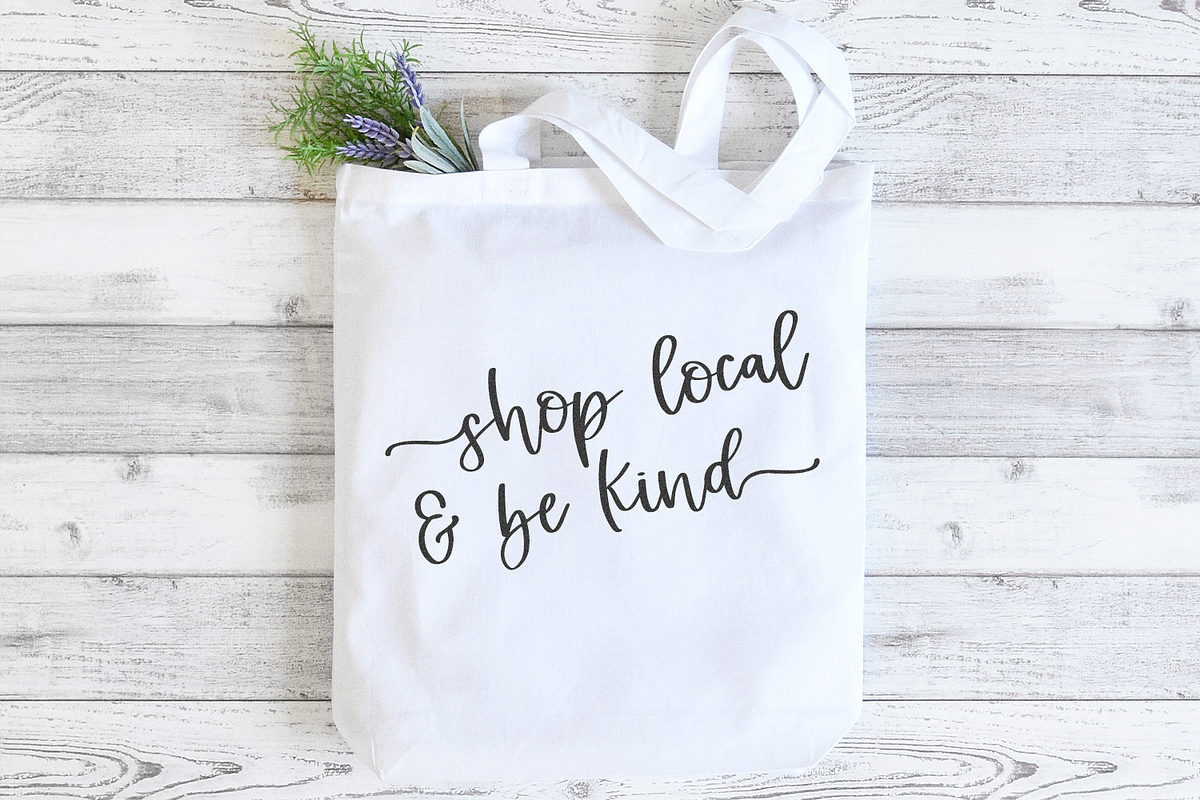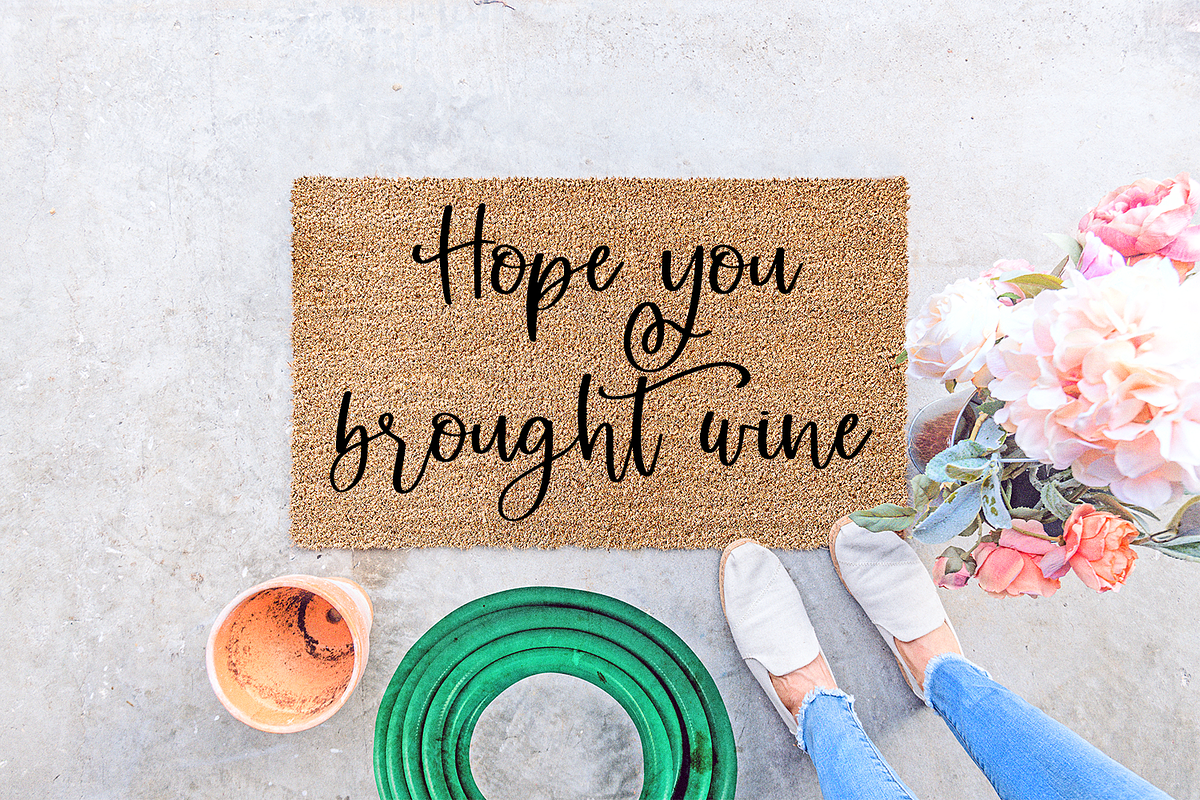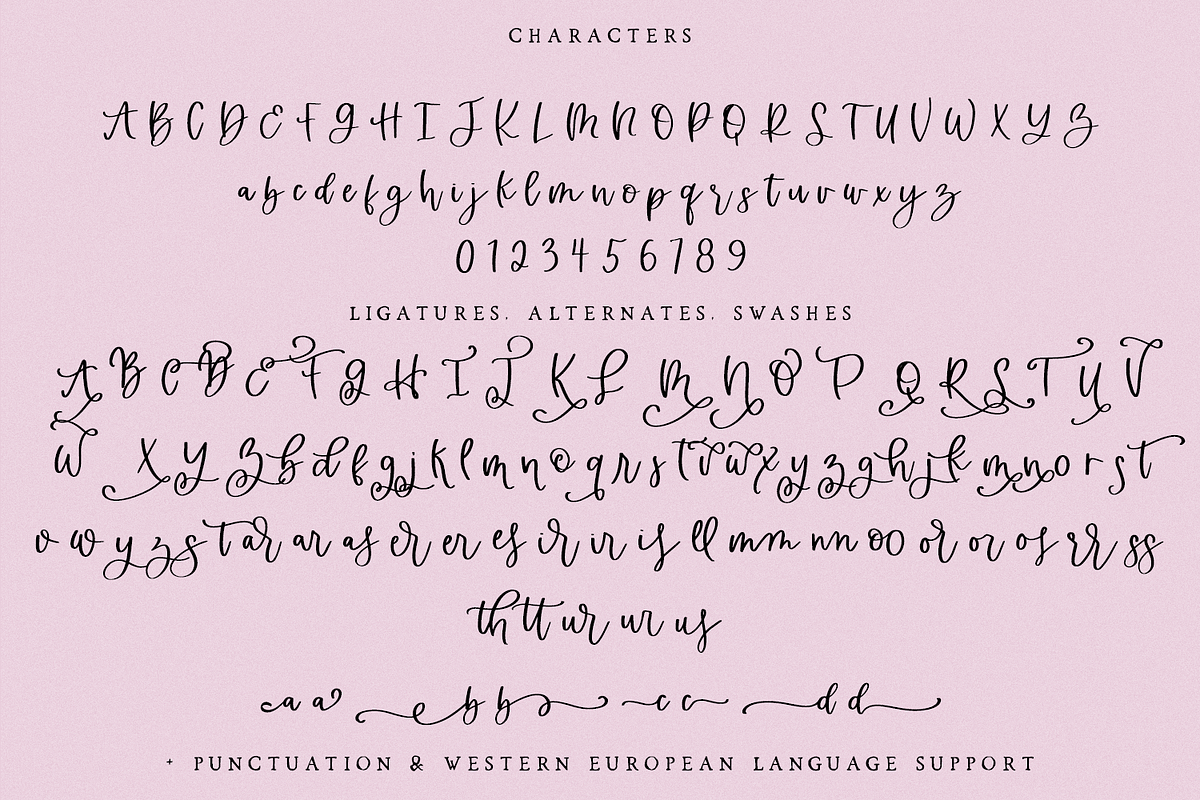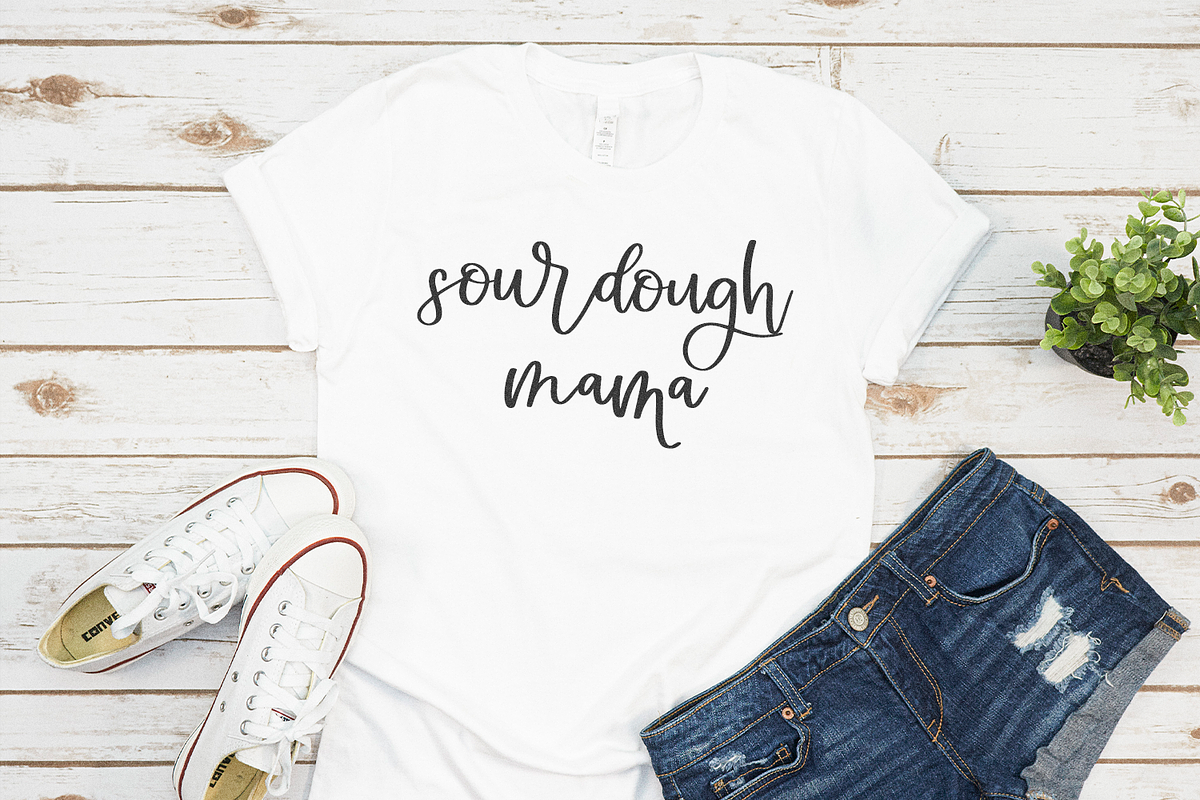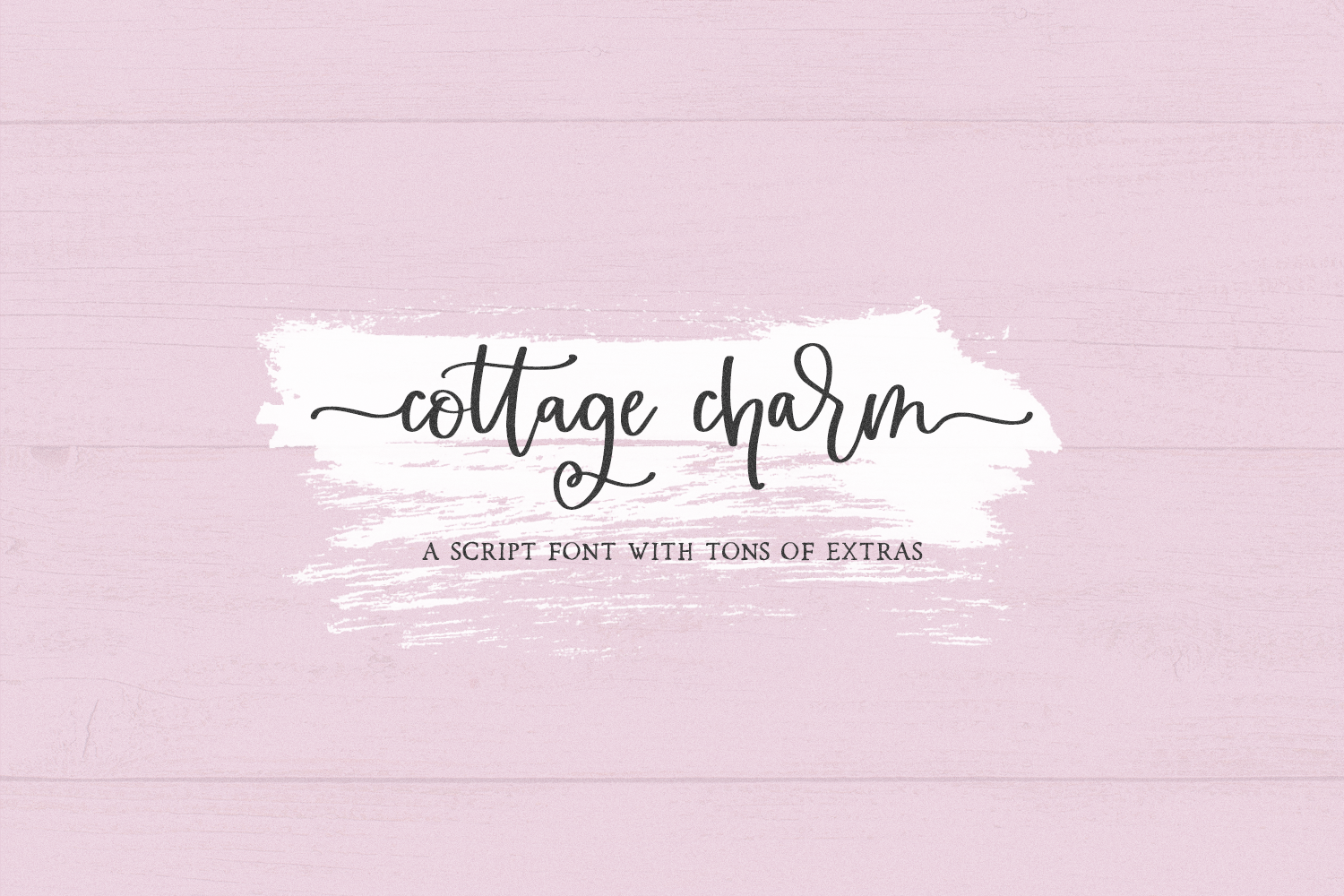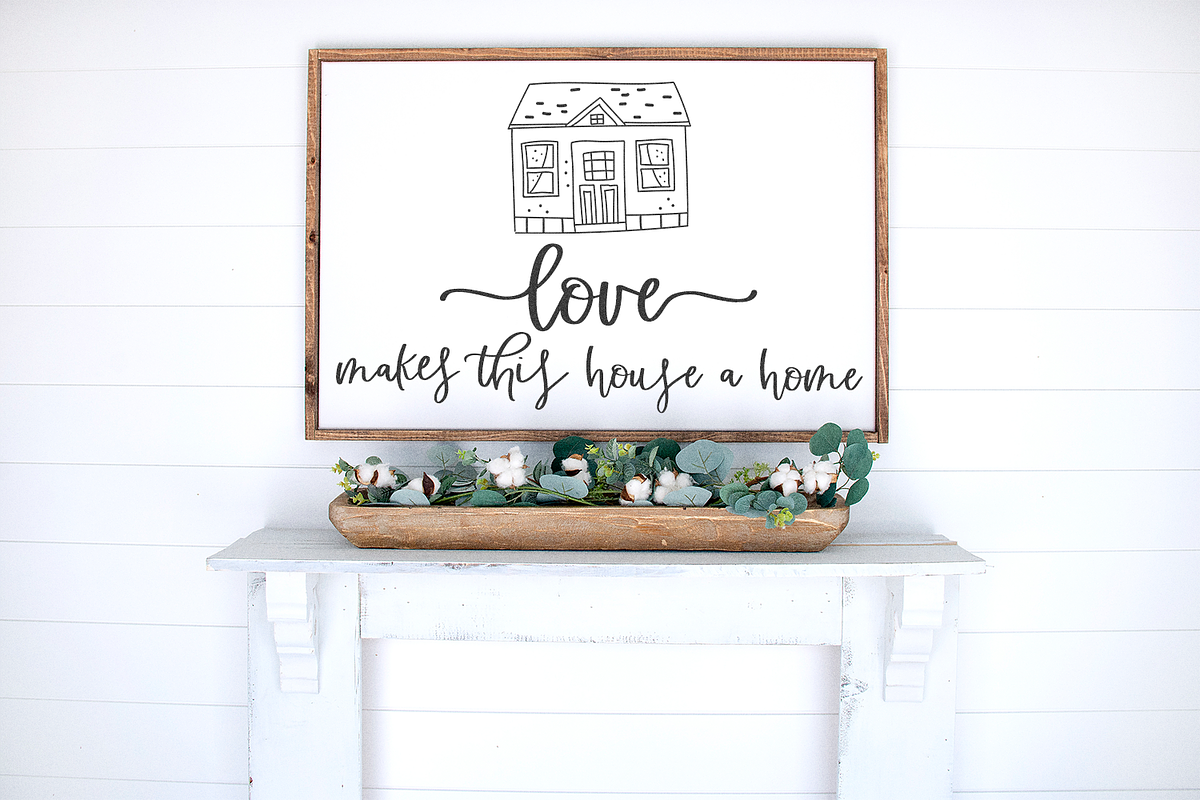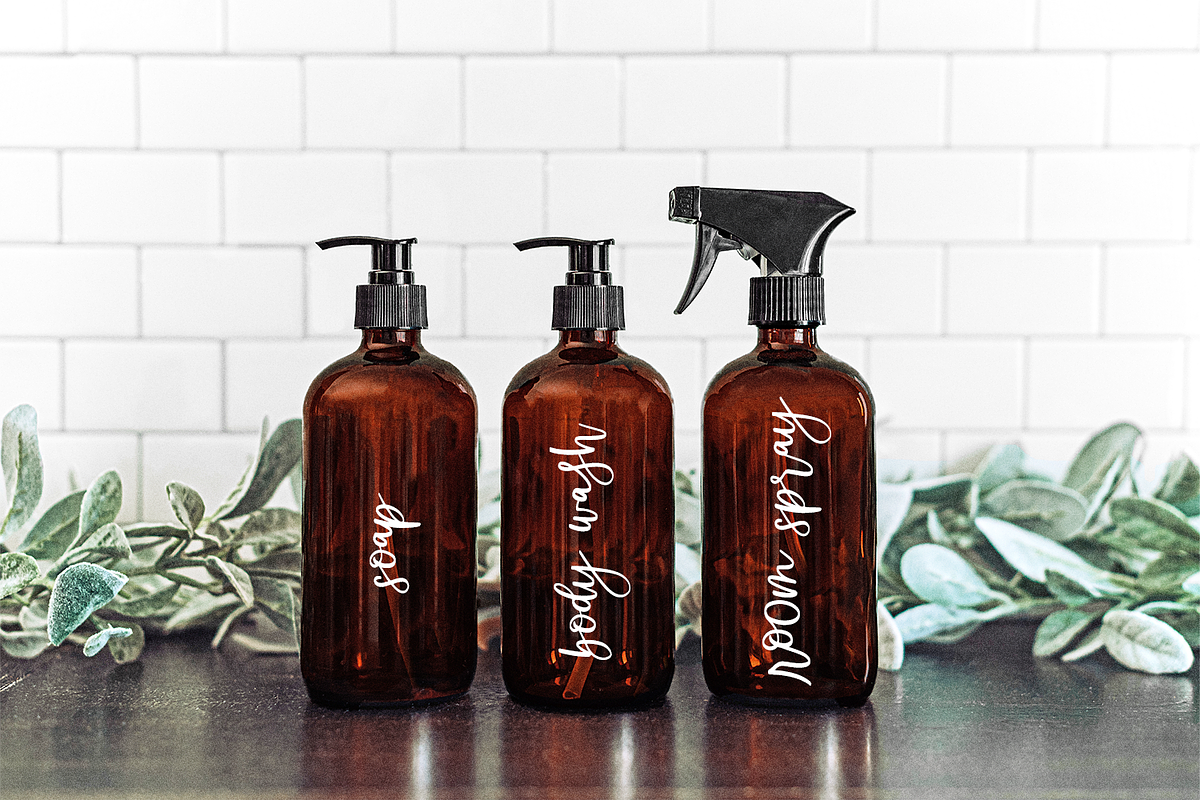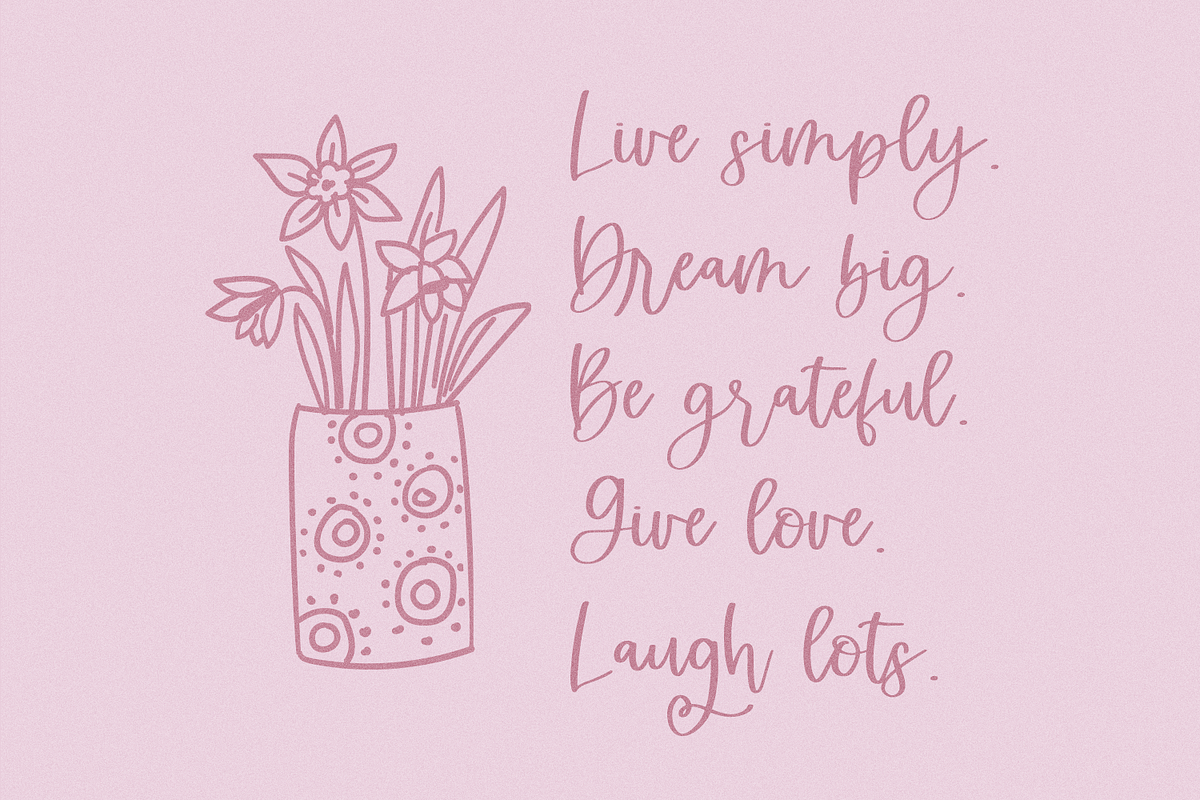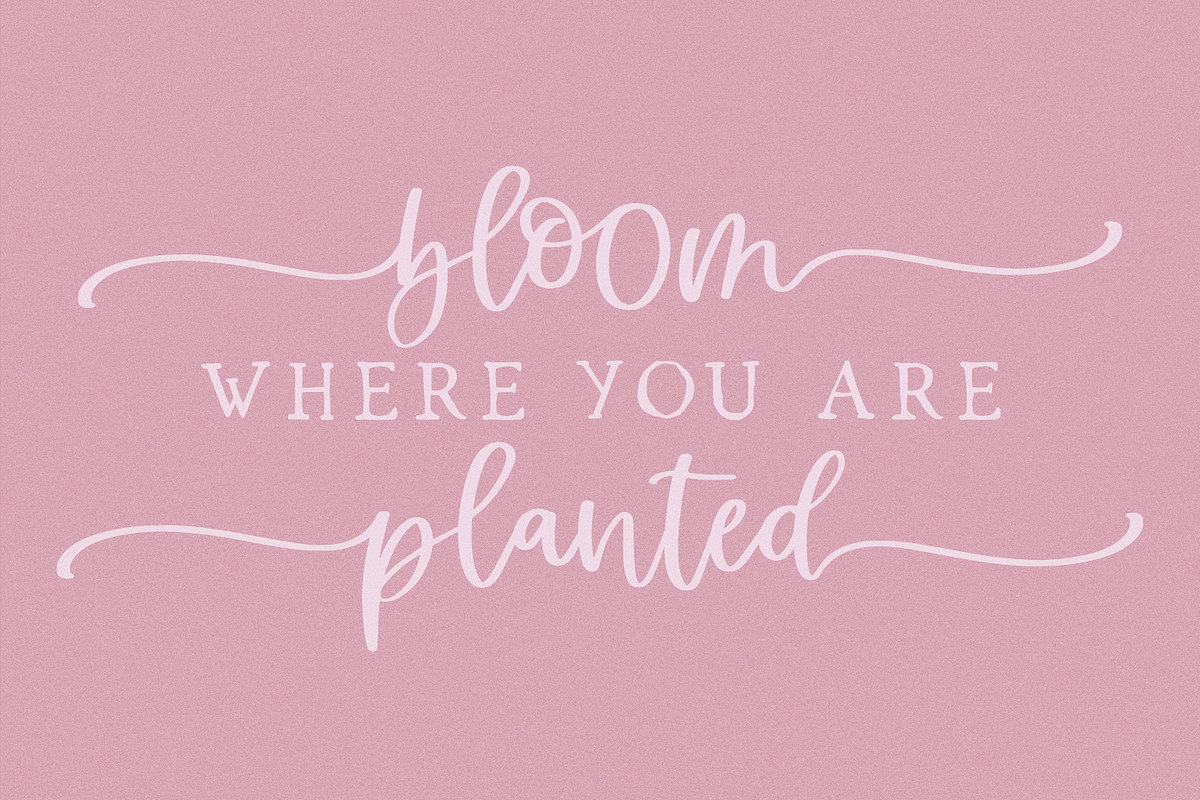
Cottage Charm Calligraphy Font
Cottage Charm is a modern calligraphy font. Cottage Charm is full of ligatures, flourished characters, and swashes!This script font also includes some alternate characters. This font is perfect for logos & branding, greeting cards, painted banners, digital planners, note-taking apps, Canva, Cricut projects, Silhouette projects, designing SVG files, laser cutting projects, & more.
Cottage Charm Script includes:
- full upper + lowercase characters
- numbers + punctuation
- 62 alternates
- 23 ligatures - ar, ar, as, er, er, es, ir, ir, is, ll, mm, nn, oo, or, or, os, rr, ss, th, tt, ur, ur, us
- 208 swash characters
- Western European language support - English, French, Spanish, Portuguese (Brazil), Portuguese (Portugal), Italian, German (Germany), German (Austria), Dutch, Danish, Swedish, Norwegian (Bokmål and Nynorsk), Finnish, Icelandic, Irish, Welsh